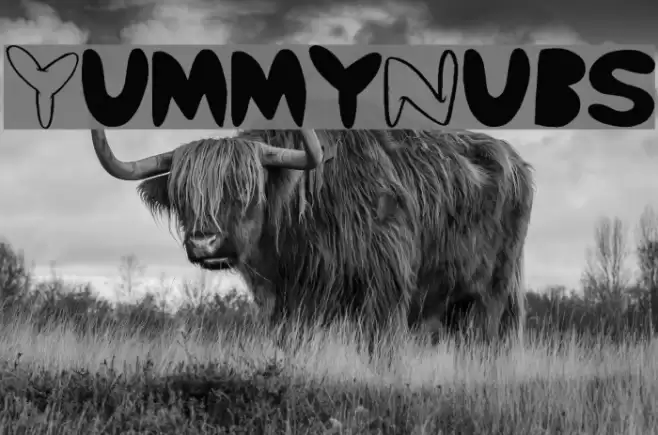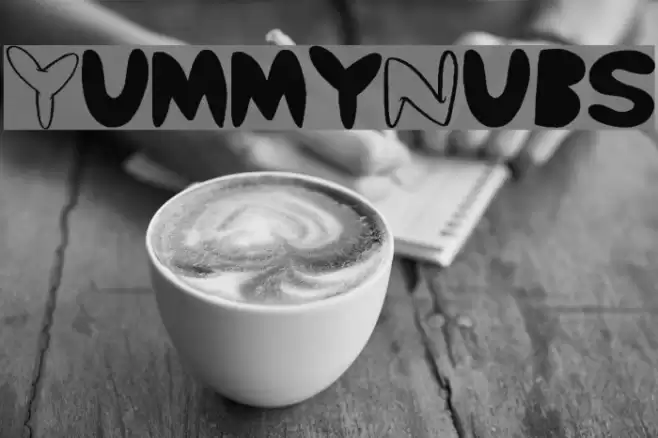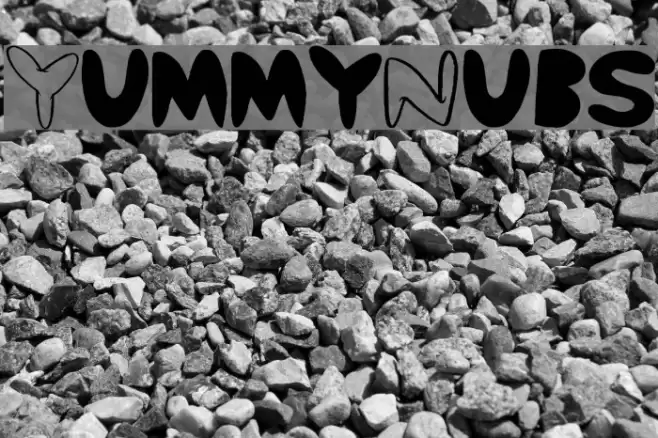
Yummy Nubs Font
Yummy Nubs Description
This playful and bold font features a bubbly, rounded design that exudes a sense of fun and whimsy. The characters are thick and substantial, with a consistent stroke width that gives them a strong presence on the page. The uppercase letters are particularly eye-catching, with their exaggerated curves and soft edges. The lowercase letters maintain the same playful style, ensuring a cohesive look across different text sizes. The numbers and special characters are equally well-designed, fitting seamlessly with the overall aesthetic. This font is perfect for projects that require a touch of creativity and lightheartedness.
A playful, bold font with rounded, bubbly characters from Cartoon fonts.
- Proposed Projects: Ideal for children's books, playful branding, party invitations, and creative posters.
- Overall Style: Playful, Fun